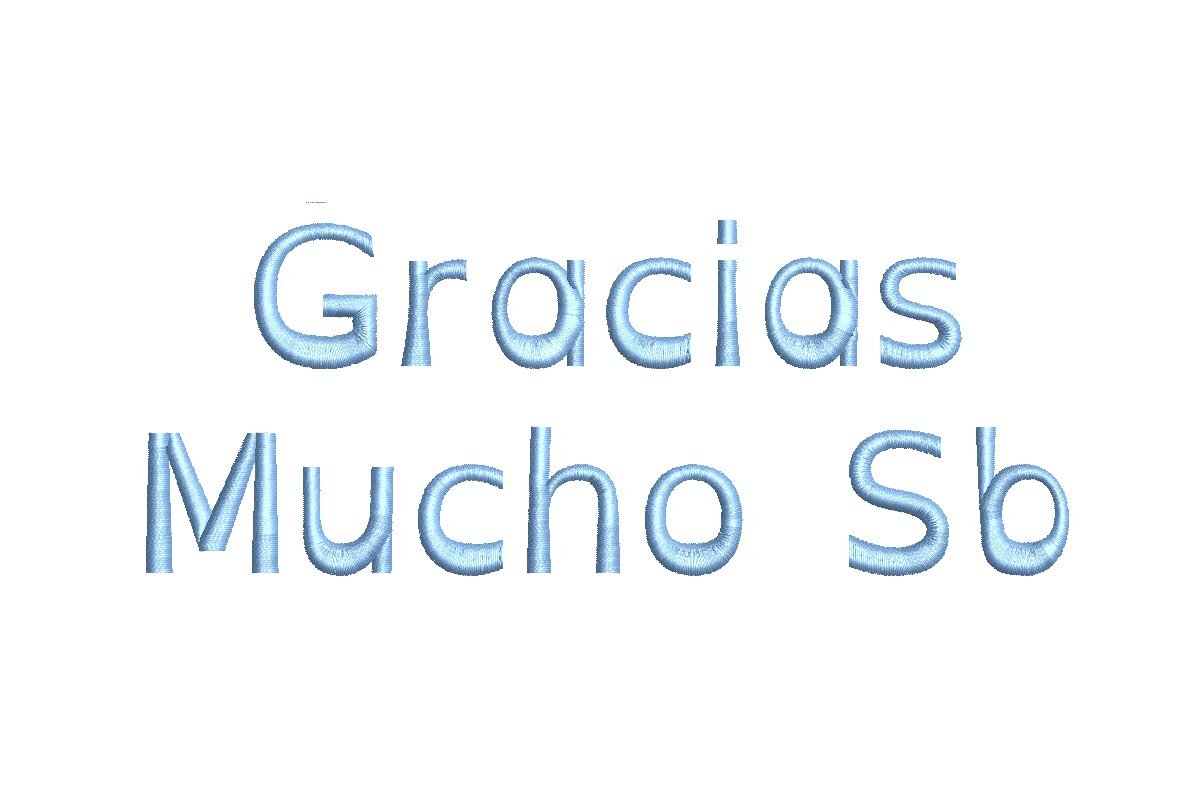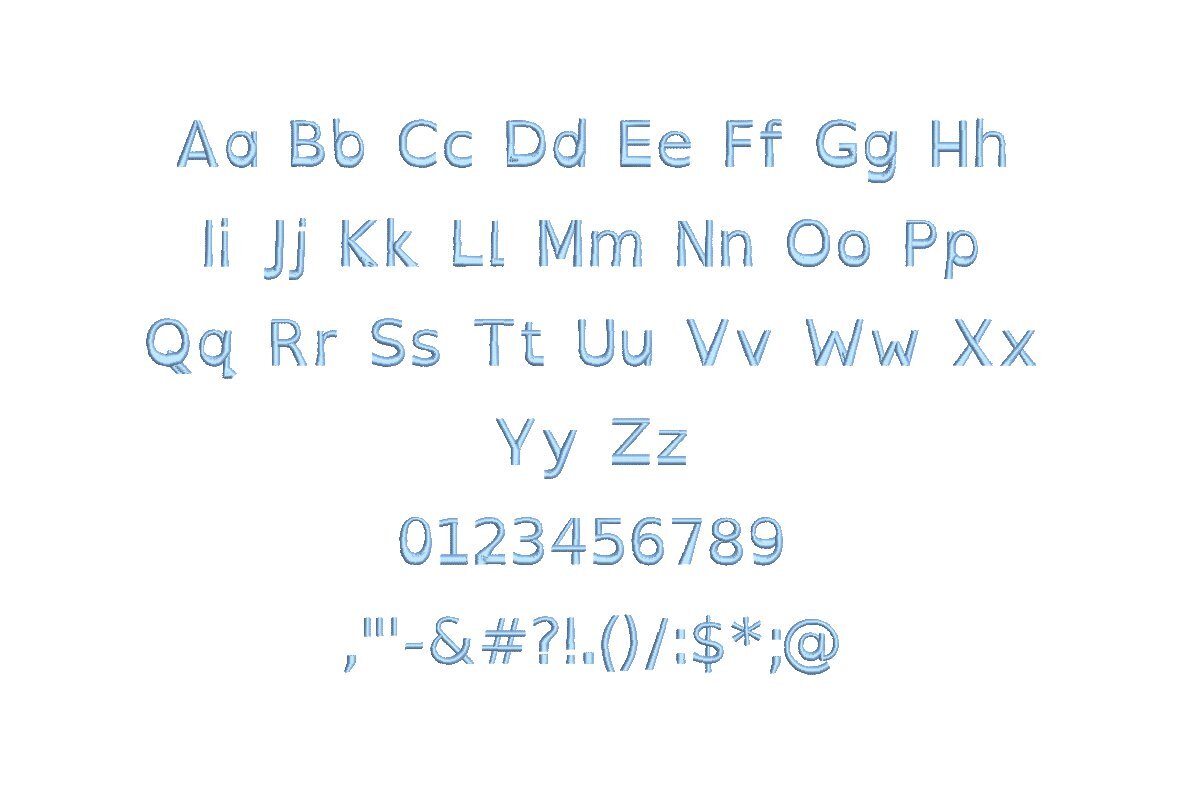
Gracias Mucho SB ESA Font
Introducing the Gracias Mucho SB ESA font, your ultimate tool for expressive embroidery. Designed for seamless compatibility with Wilcom Studio e4.5.6 and Hatch 3 versions and up, this font effortlessly integrates into your digitizing process. Gracias Mucho SB ESA offers impeccable precision and versatility, making it ideal for monograms, bold lettering, and intricate designs. Elevate your embroidery projects with its exceptional quality and expressive style. Craft professional and captivating designs effortlessly on various fabrics and items. Don't miss the opportunity to enhance your embroidery journey. Choose the Gracias Mucho SB ESA font today and unlock a world of creativity and precision with every stitch, setting new standards for your embroidery excellence.